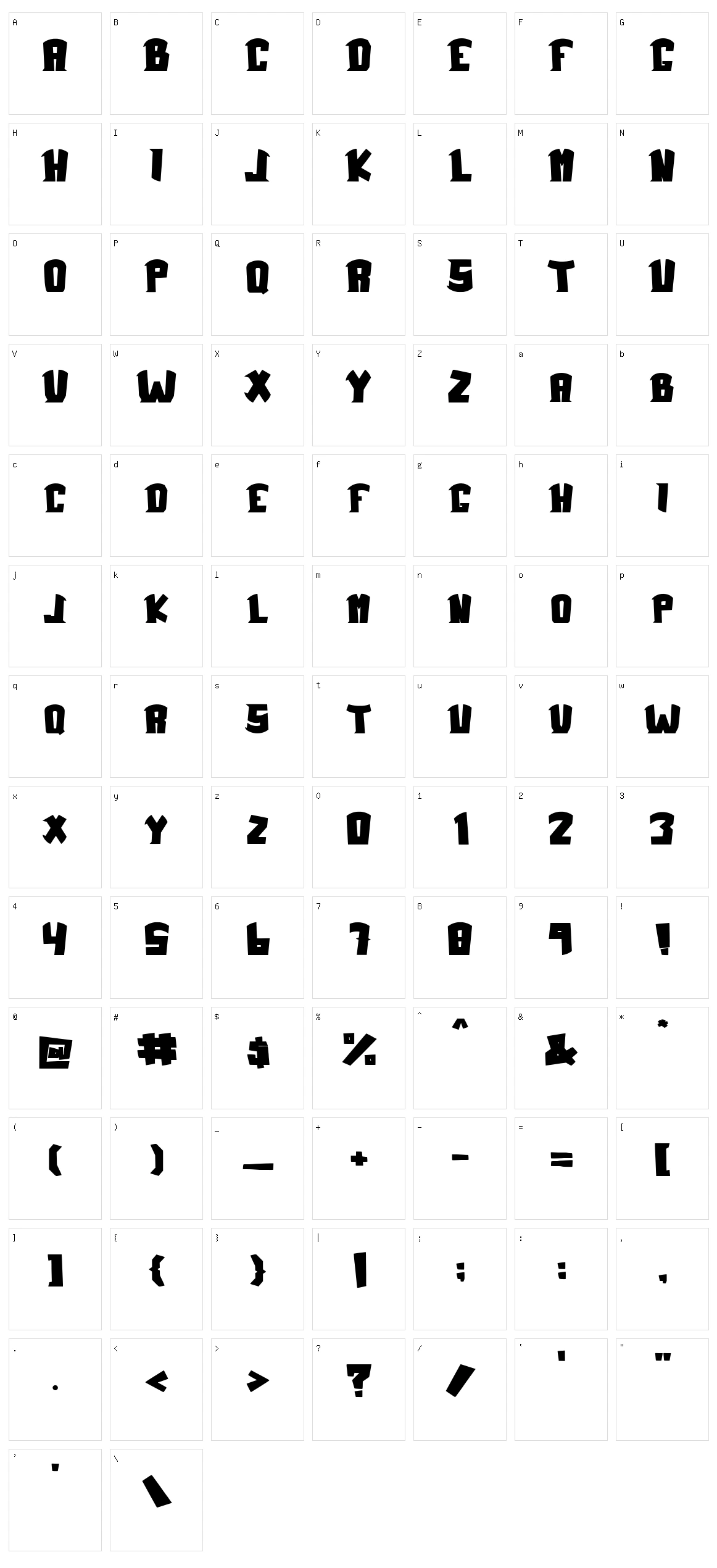
The free font Vampire World is carefully designed by Asep Rendi, showcasing a thoughtful balance of creativity and usability and falls under the Halloween font style. When you download the ZIP file, it contains only 33.69 KB of font files, making it lightweight and quick to download. Please review the license details below to understand permitted usage and distribution rights. If license information is not available, we recommend using this font for personal projects only or contacting the author directly for commercial usage permissions.